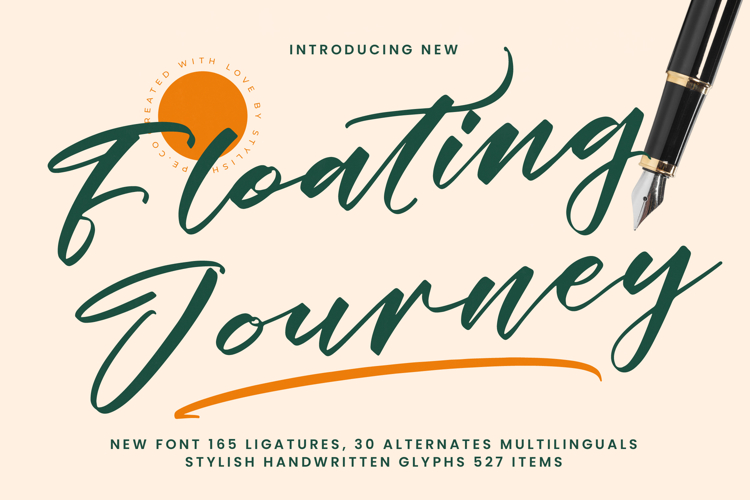
Floating Journey - Stylish Handwritten Font
Discover the rich design possibilities offered by Font Floating Journey - Stylish Handwritten Font Script, featuring an impressive array of 165 ligatures and 30 alternates. These meticulously designed stylistic sets ensure unparalleled flexibility, allowing for truly unique and personalized typography. Its distinctive brush-like strokes and subtle variations add depth and character, making every word a visual statement of refined sophistication.
Unlock new horizons for your creative ventures globally. With its extensive multilingual support, Font Floating Journey - Stylish Handwritten Font Script adapts seamlessly across global markets, making it incredibly versatile for international projects. This comprehensive language coverage ensures your message resonates clearly and beautifully, fostering professional brand consistency across diverse audiences.
Perfect for luxury branding, premium packaging, editorial design, and exclusive invitations, Font Floating Journey - Stylish Handwritten Font Script is your ideal choice for projects demanding a unique, memorable presence. Whether for heartfelt greeting cards, fashionable apparel, impactful social media graphics, or elegant logos, this font guarantees to leave a lasting impression, transforming ordinary text into extraordinary art.